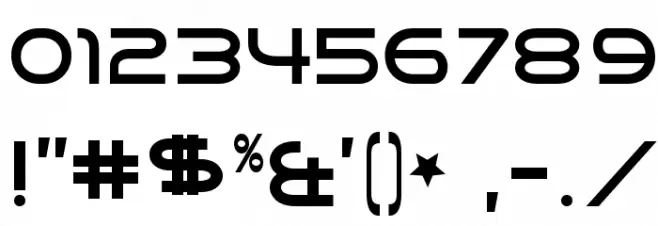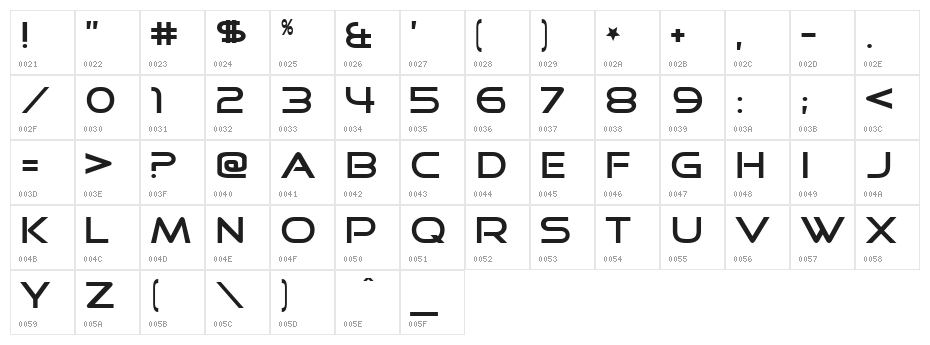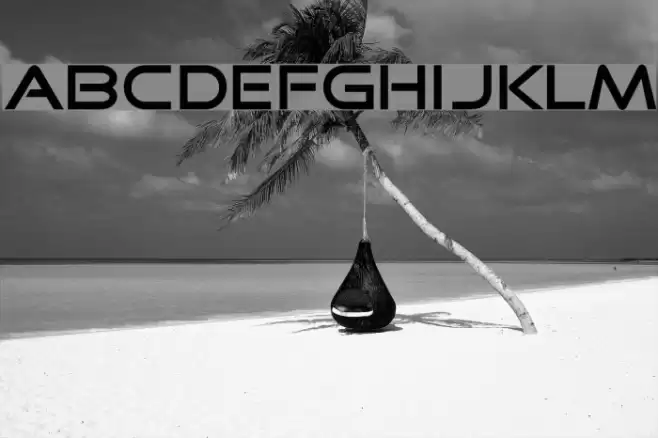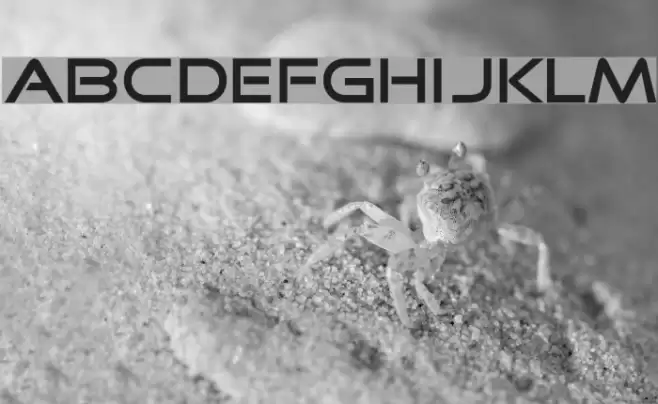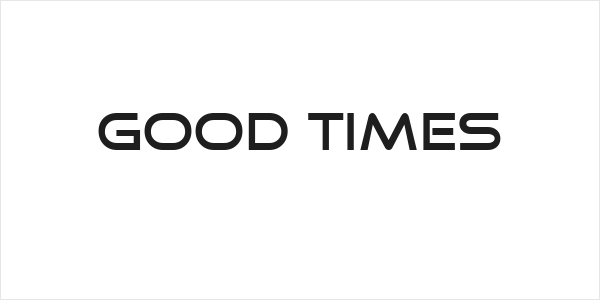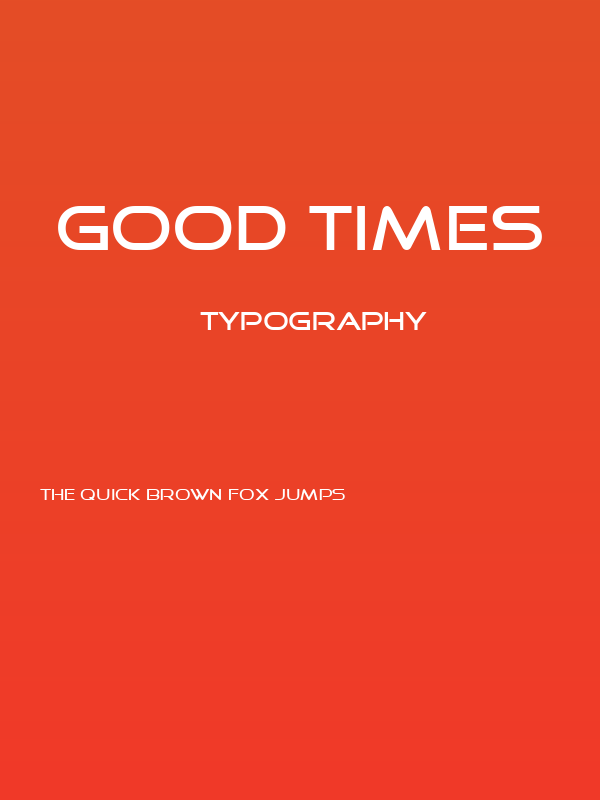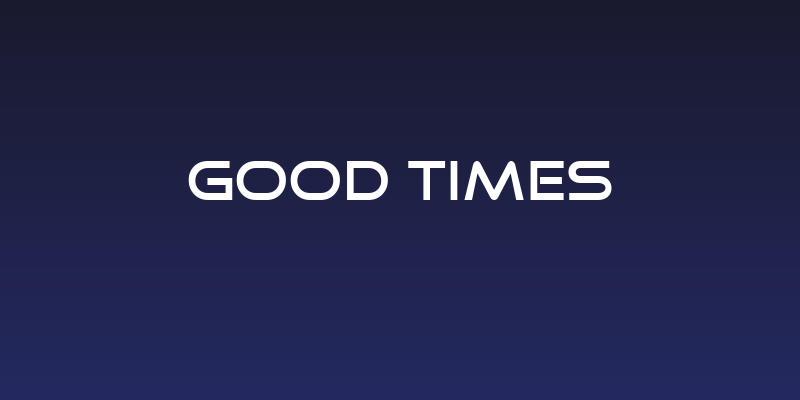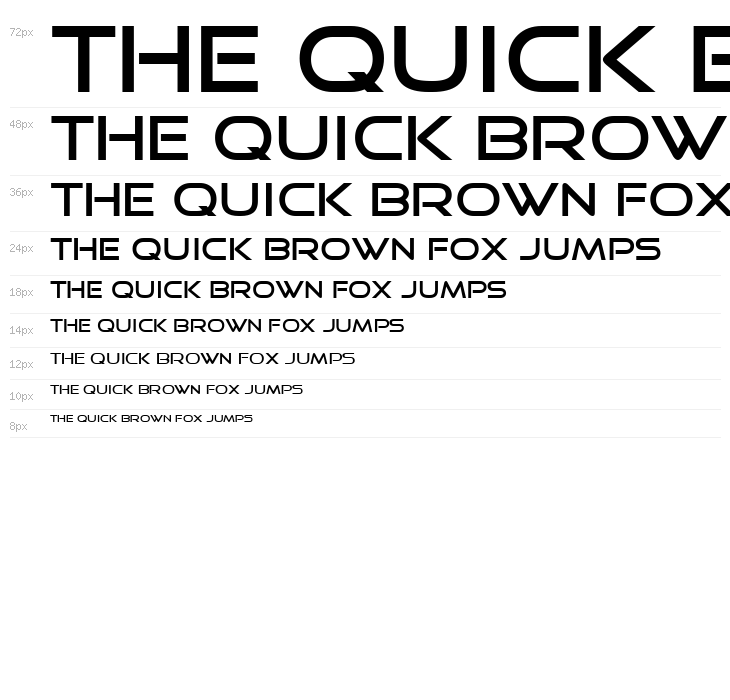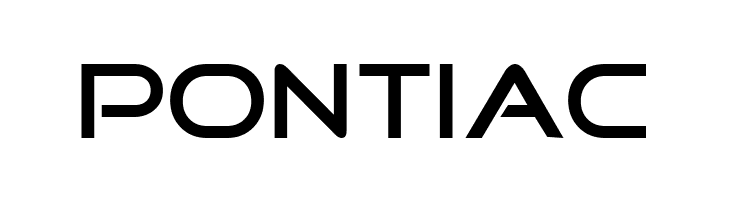
Good Times Font
Good Times Description
This font features a sleek, modern design with a geometric and slightly futuristic aesthetic. The characters are bold and uniform, with a consistent stroke width that gives it a clean and polished look. The uppercase letters are angular and sharp, while the lowercase letters maintain a similar style with slightly softer edges. The numerals are distinct and easily readable, matching the overall style of the alphabet. Special characters are well-integrated, maintaining the font's cohesive appearance. This font is ideal for projects that require a contemporary and professional look.
| Proposed Projects | Ideal for branding, advertising, digital media, and modern web design. |